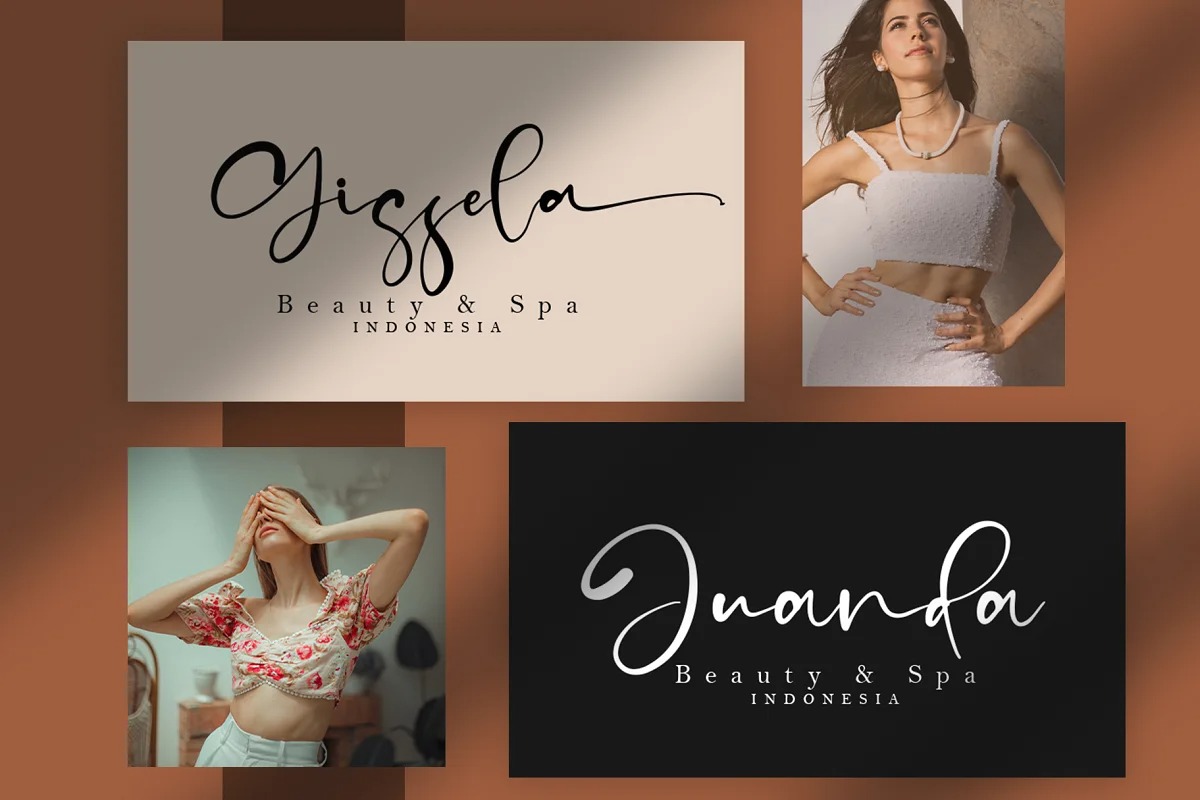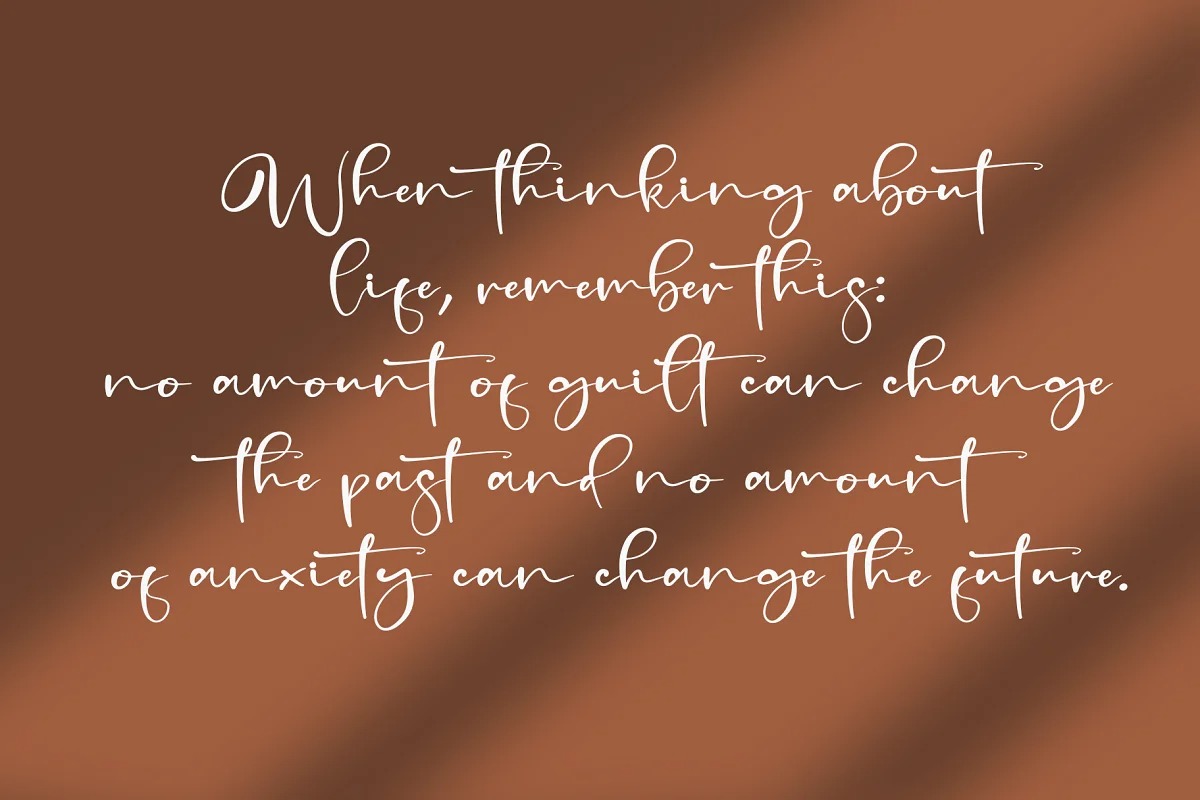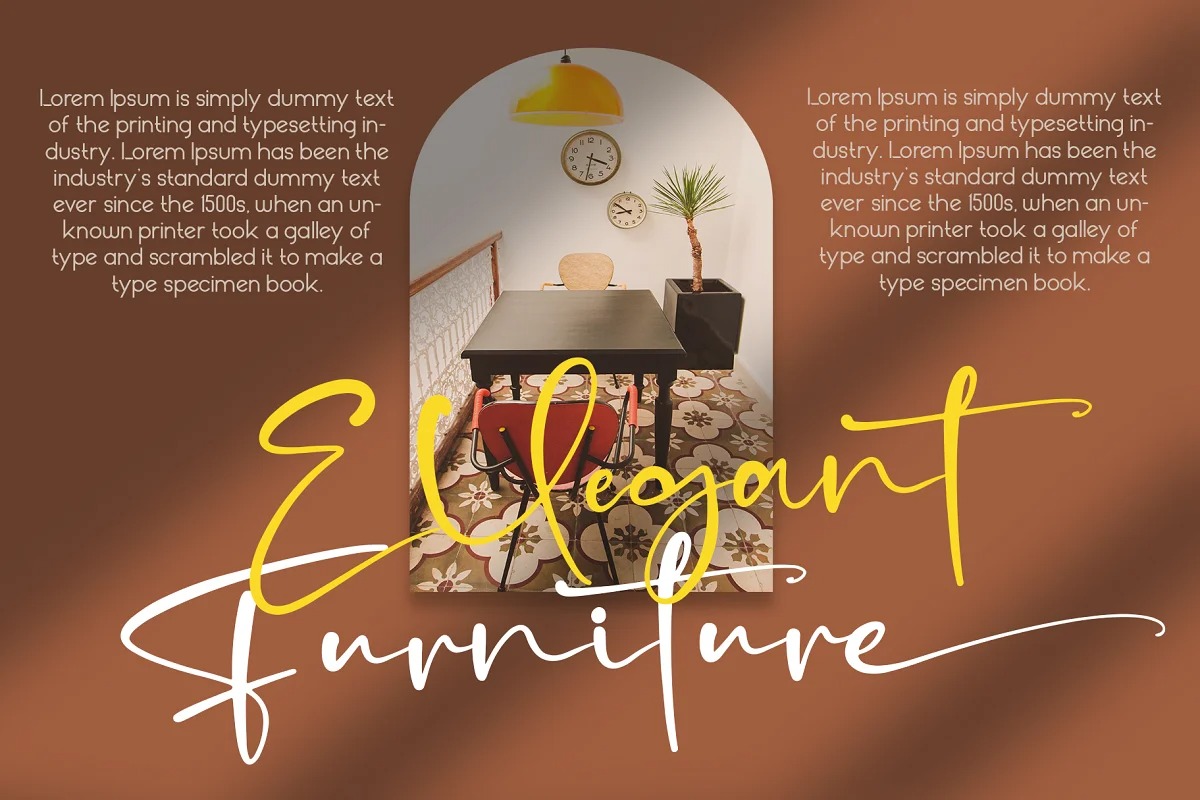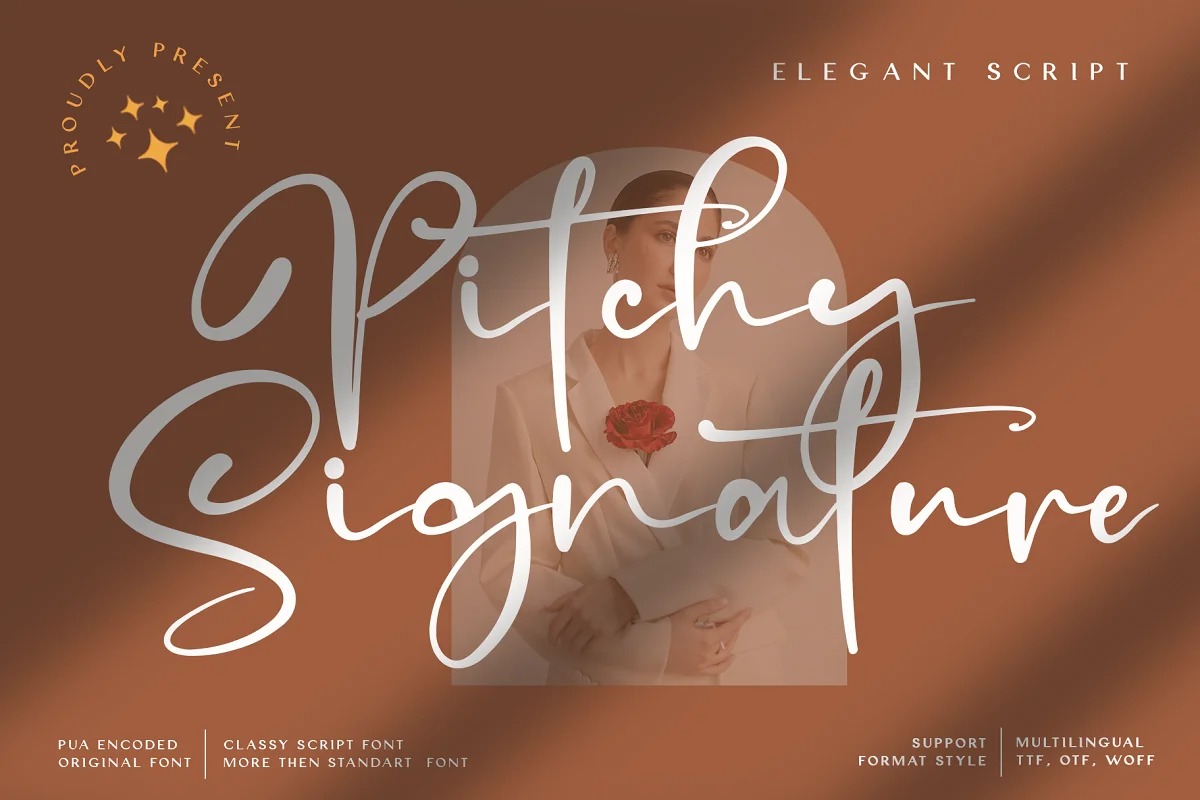
Pitchy Signature Font
This font is lovely and organic script loaded with alternate and ligature glyphs, swashes and support for multiple languages. This font was particularly crafted for those who need a beautiful and refreshing look to their designs. Pitchy Signature is PUA encoded which means you can access all of the glyphs and swashes with ease!